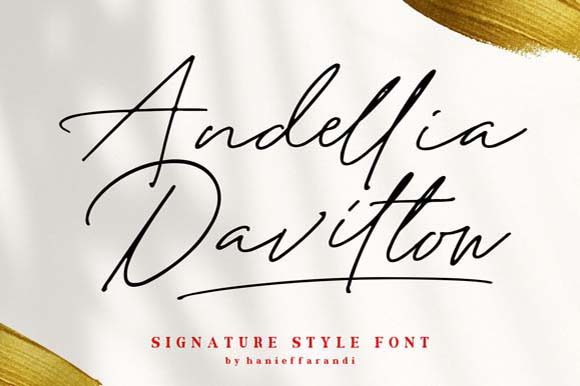
Introducing Andellia Davilton Font: A Journey of Elegance and Expression
Embark on a calligraphic adventure with Andellia Davilton Font, a beautifully crafted script font that captivates hearts with its flowing lines and enchanting style. Step into a world of endless creativity, where words dance gracefully and emotions find their voice.
Andellia Davilton invites you to express your individuality through the art of hand-drawn elegance. Each character carries the essence of a skilled calligrapher's touch, capturing the nuances of ink on paper. Indulge in the charm of its sweeping curves and delicate swirls, and let your designs radiate a timeless aura.
With Andellia Davilton, you'll discover a font that seamlessly blends the charm of tradition with the vibrancy of modernity. It's a versatile companion for a wide range of projects, from heartfelt invitations to elegant logos, captivating social media posts to enchanting artworks.
Unleash your imagination and let your words take center stage. Andellia Davilton empowers you to craft messages that resonate, designs that inspire, and memories that last a lifetime. Immerse yourself in the beauty of handwritten artistry and elevate your creative endeavors to new heights.